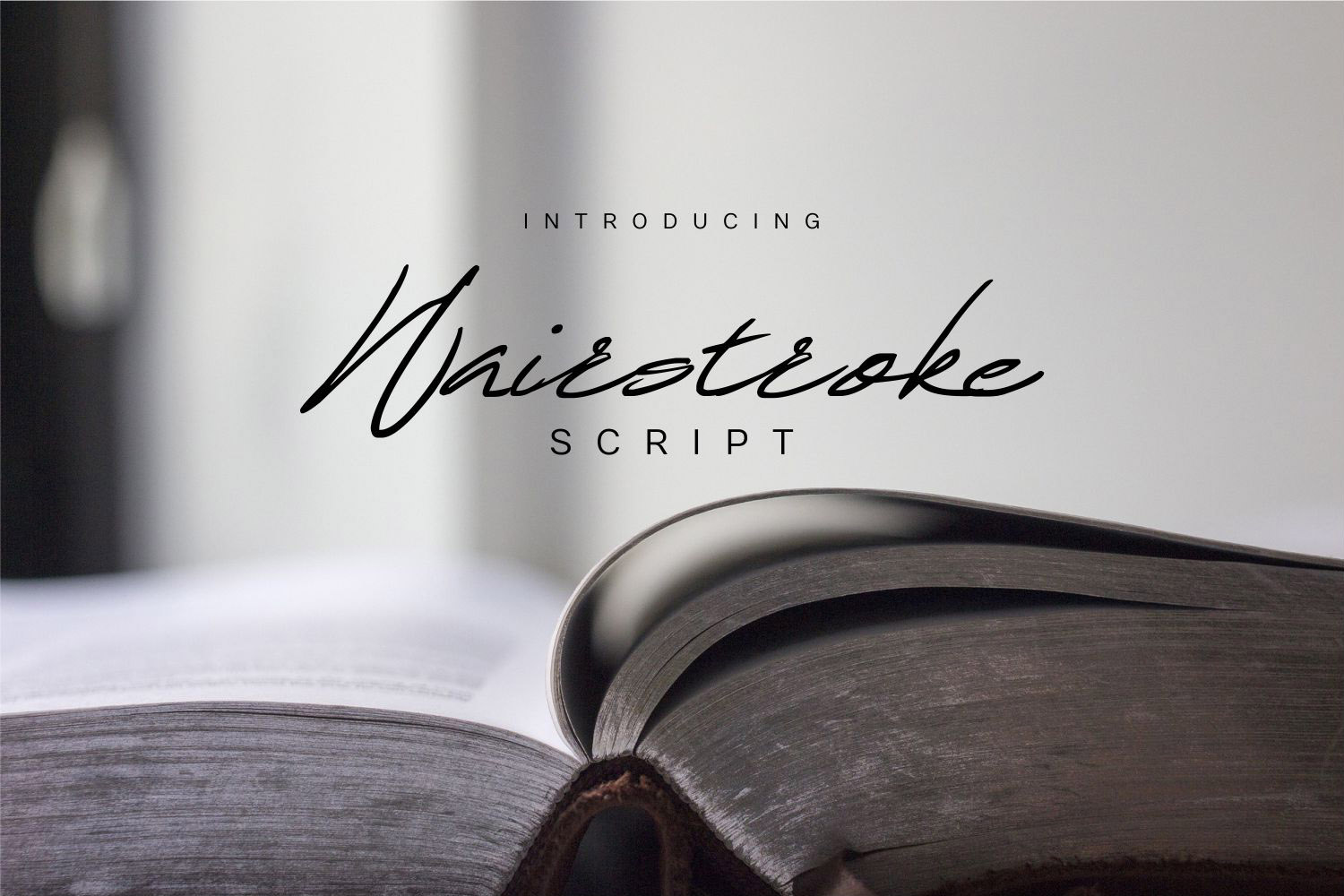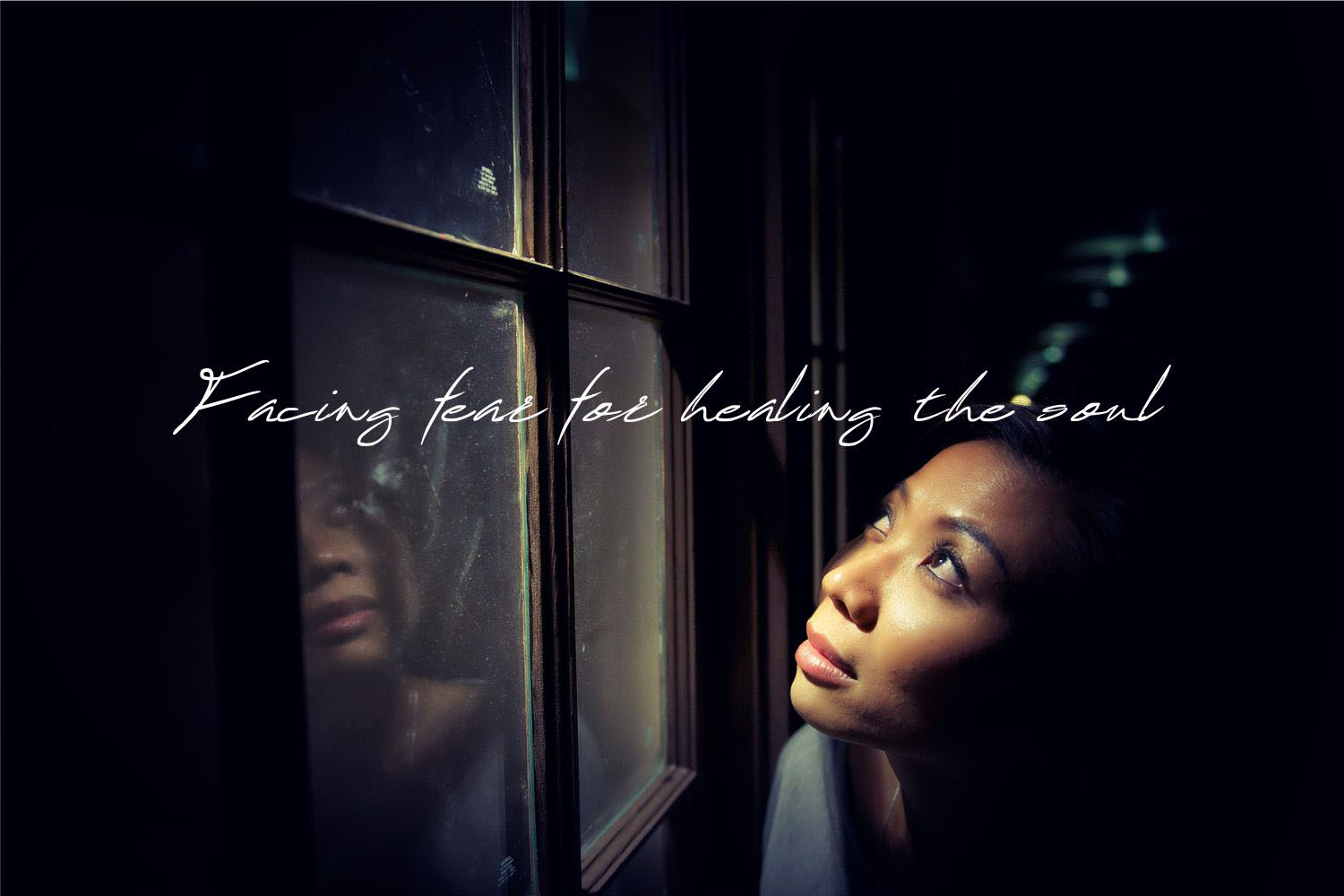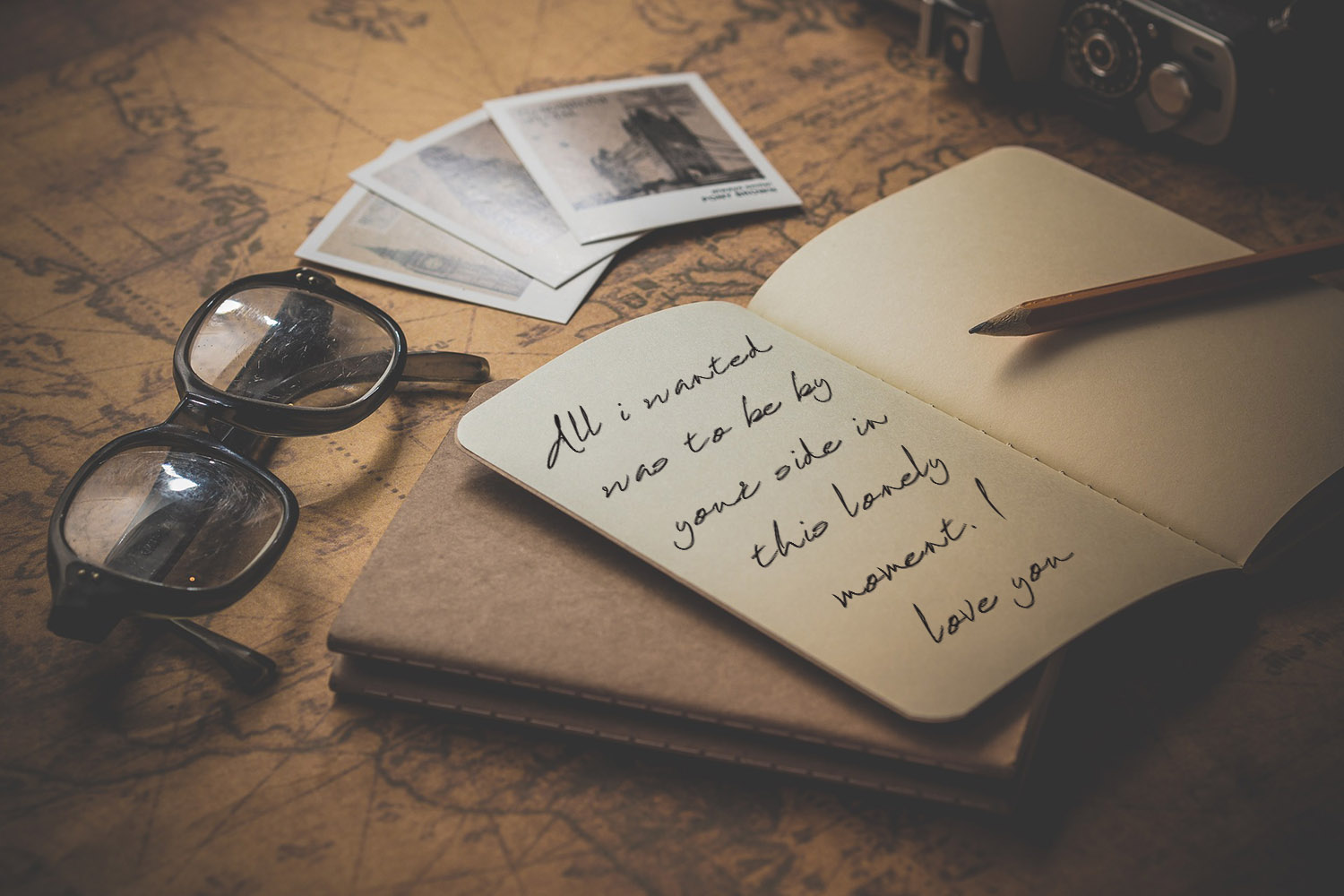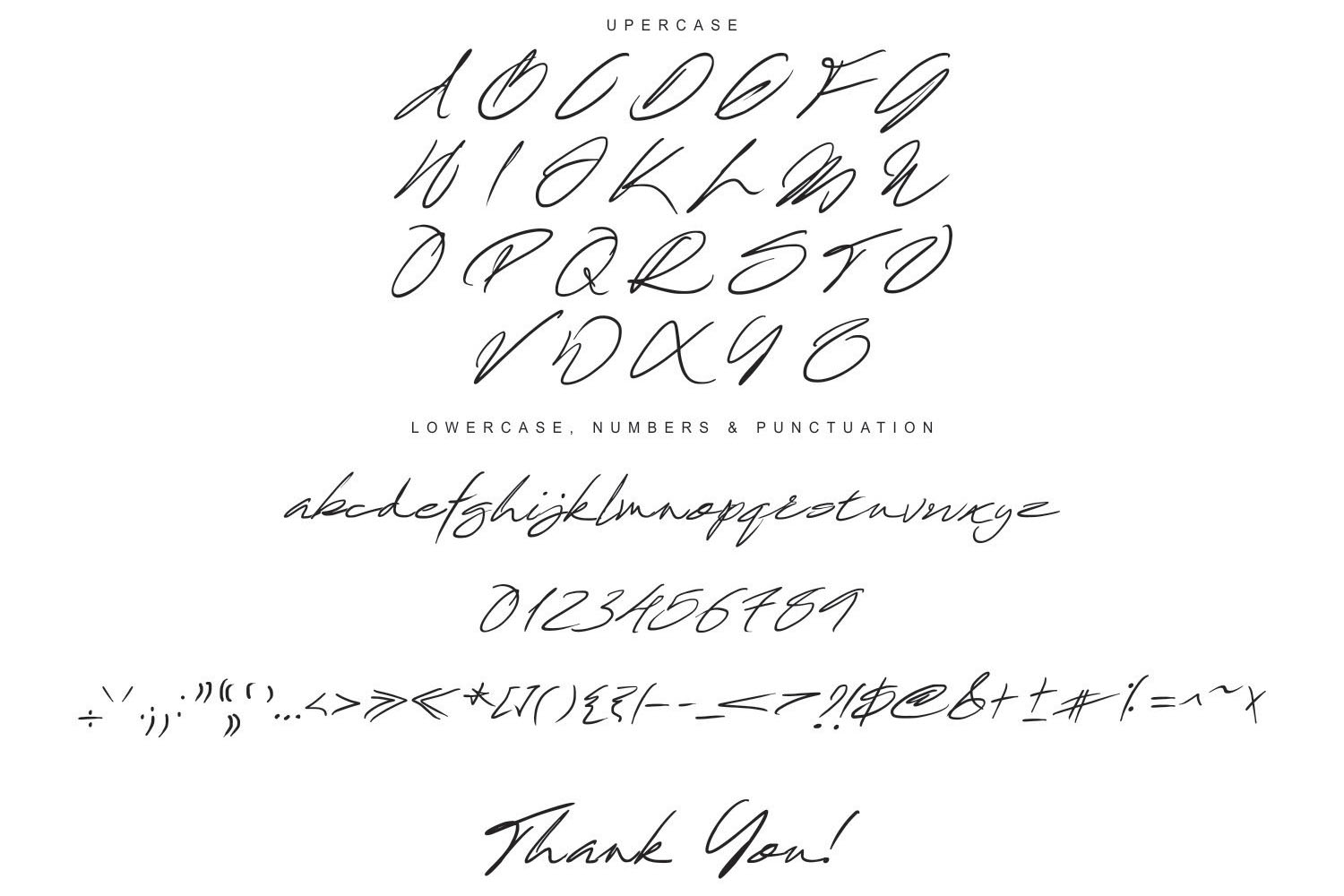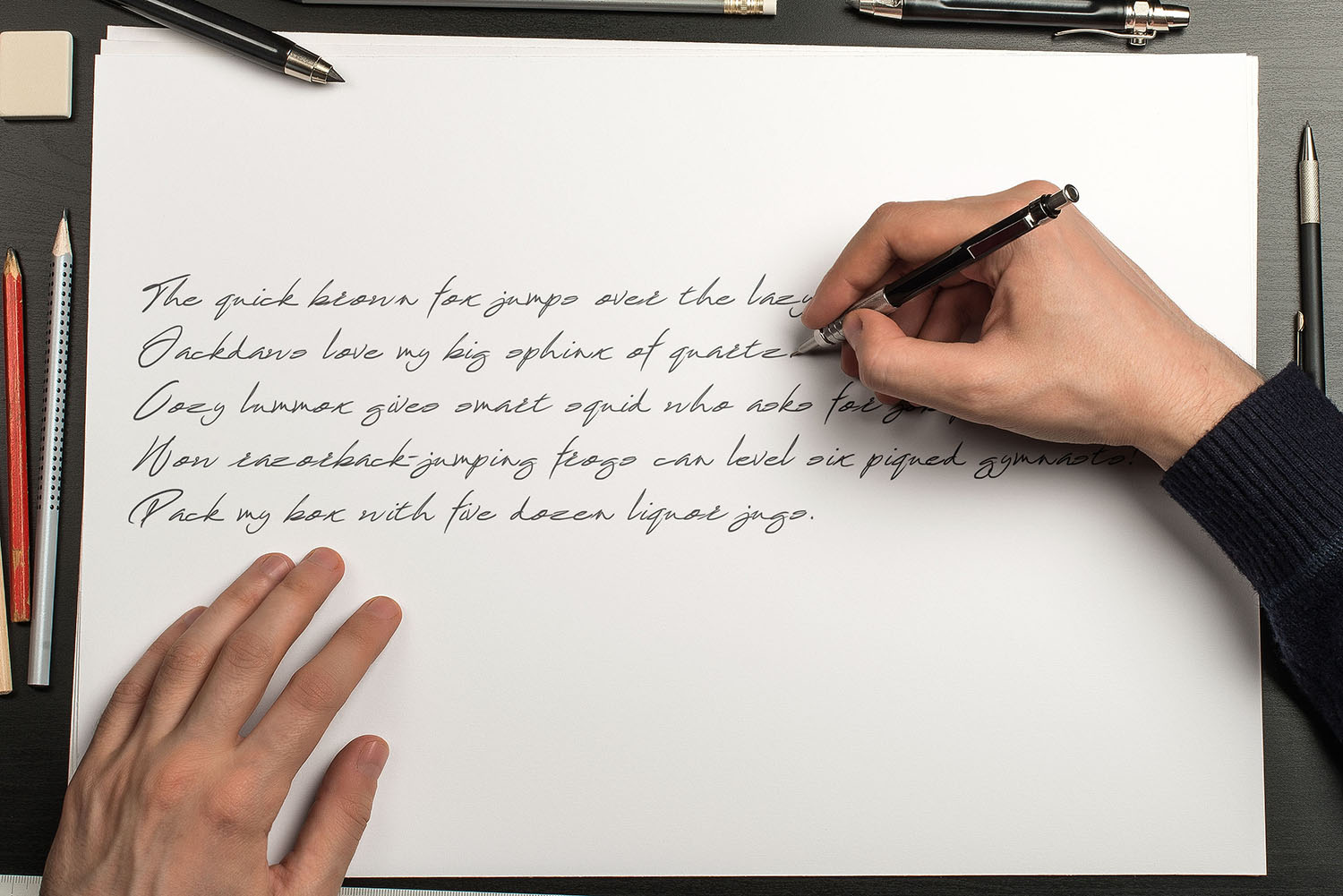
Hairstroke Font
About Hairstroke Font
Hairstroke is a great handwritten script, both delicate and vintage. This font is great for display purposes and to add a touch of personalization to your designs and projects.